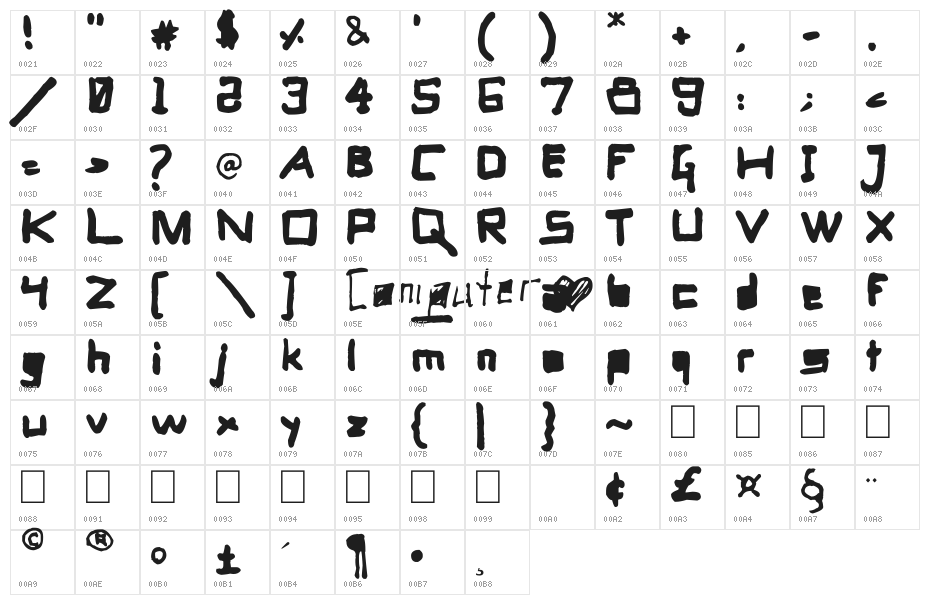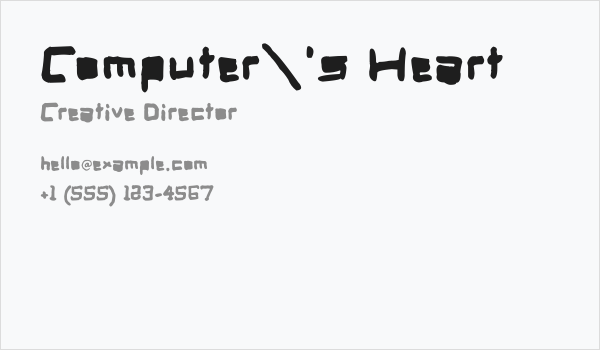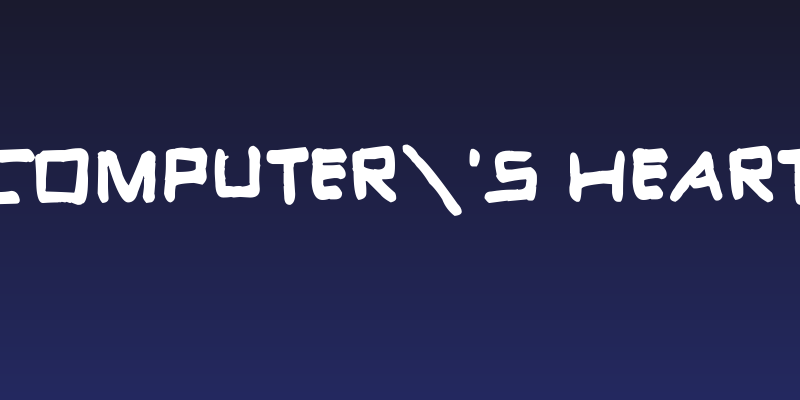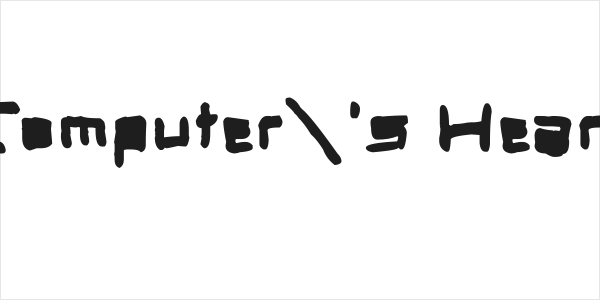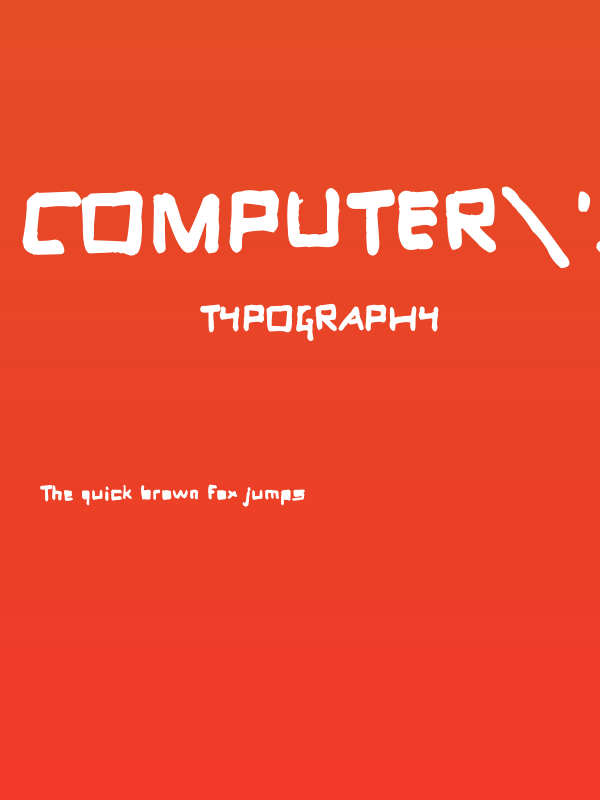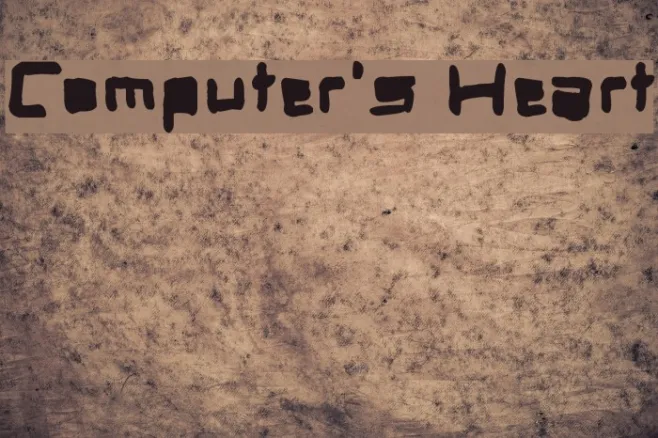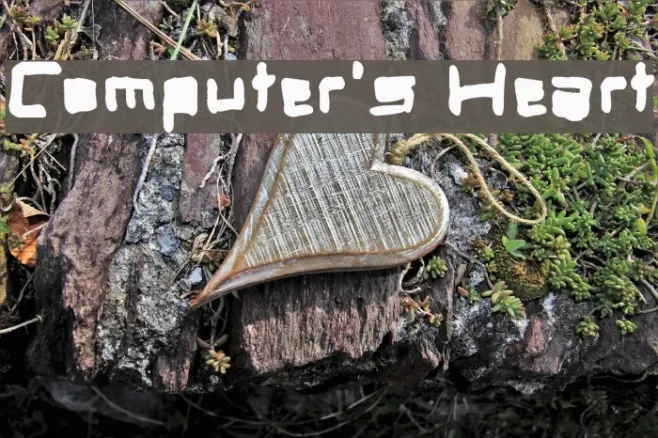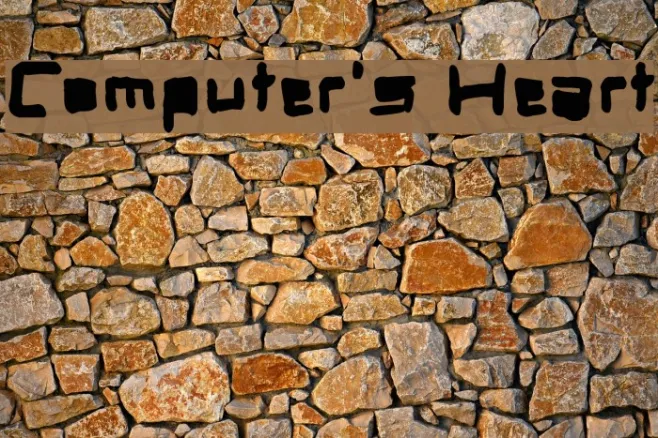
Computer's Heart Font
Computer's Heart Description
This font features a bold, hand-drawn style with irregular, organic shapes that give it a playful and artistic appearance. The characters are thick and uneven, with a rough texture that suggests a handmade quality. The uppercase and lowercase letters maintain a consistent style, with the uppercase being slightly more angular. Numbers and special characters follow the same aesthetic, adding to the font's cohesive look. The overall design is unique and eye-catching, making it suitable for creative projects that require a distinctive and informal touch.
| Proposed Projects | Ideal for posters, album covers, children's books, and creative branding. |